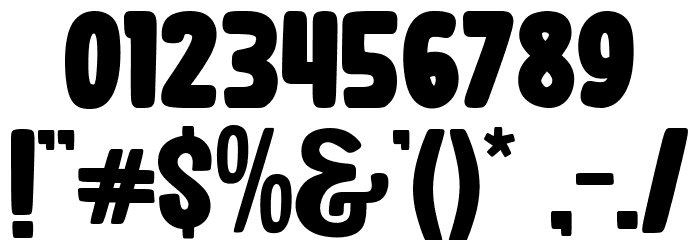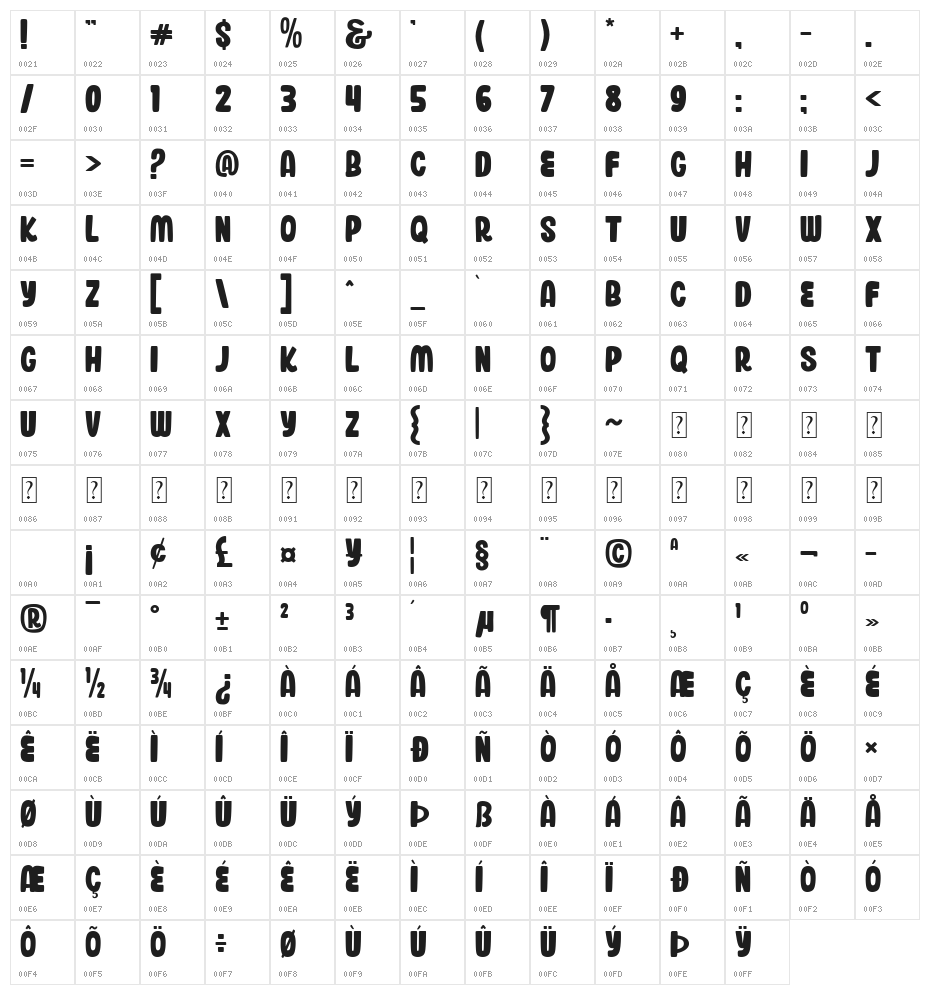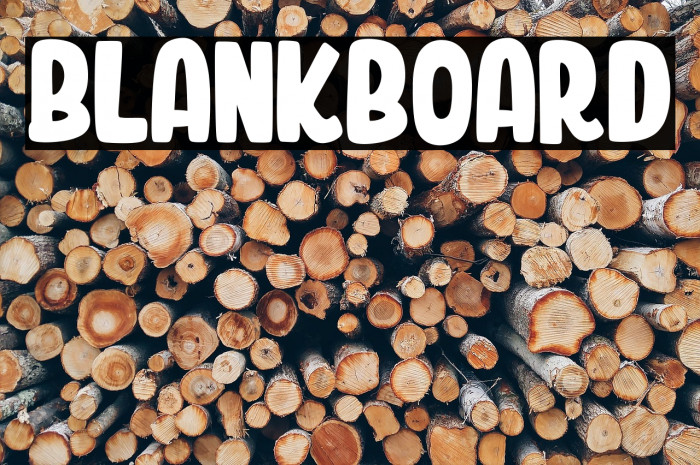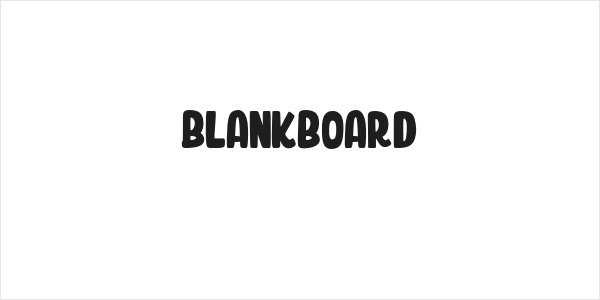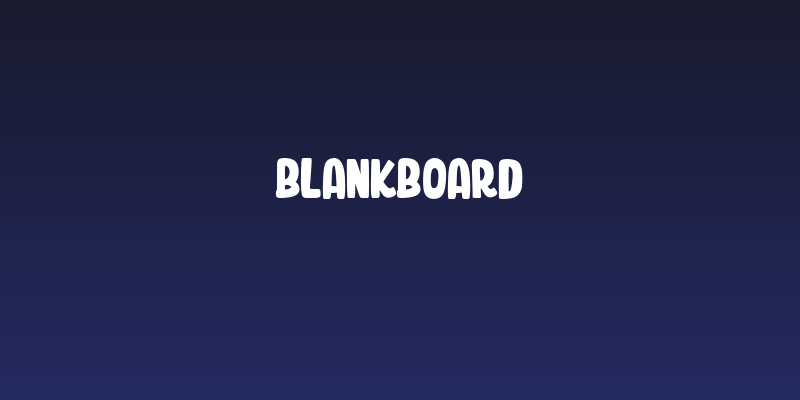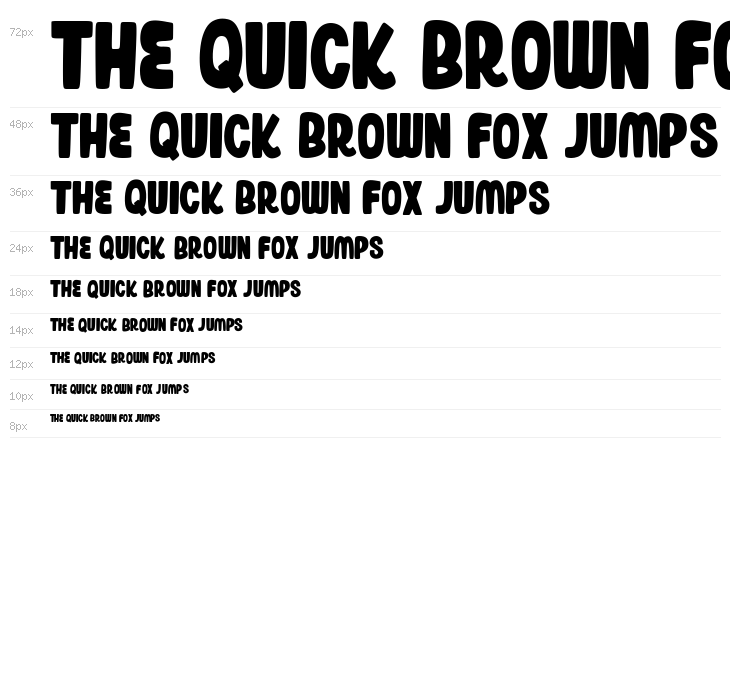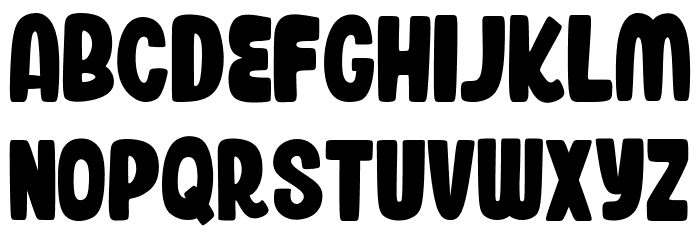
Blankboard Font
Blankboard Description
This font features bold, rounded characters with a playful and friendly appearance. The letters are uniformly thick, giving it a strong presence. The curves are smooth and consistent, creating a cohesive look across all characters. The numbers and special characters maintain the same boldness and rounded style, ensuring uniformity throughout the typeface. This font is highly legible and stands out due to its thick strokes and rounded edges, making it suitable for attention-grabbing designs.
| Proposed Projects | Ideal for children's books, playful branding, posters, and any design needing a fun and approachable feel. |